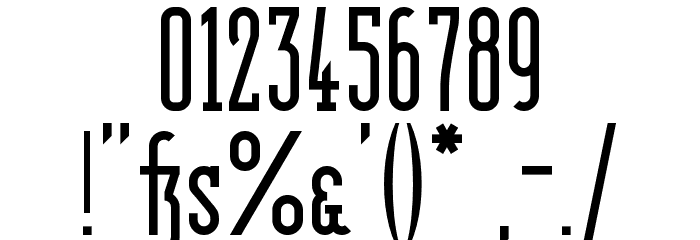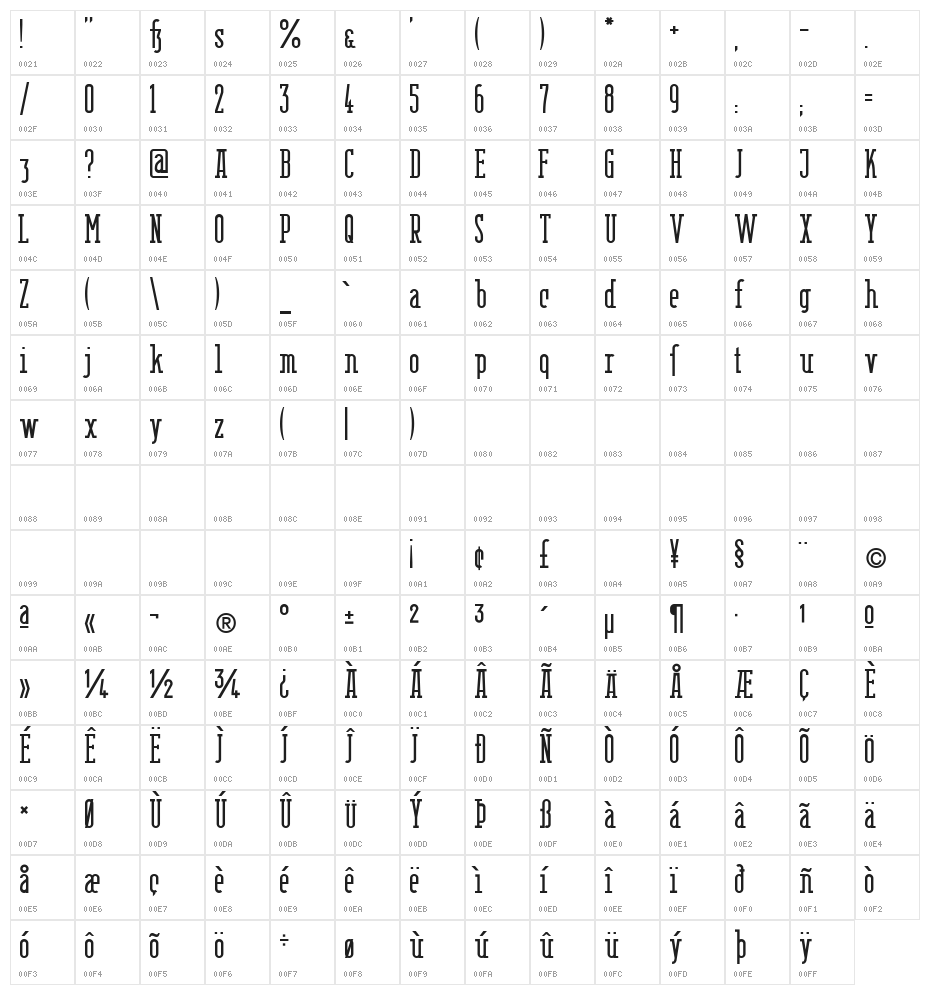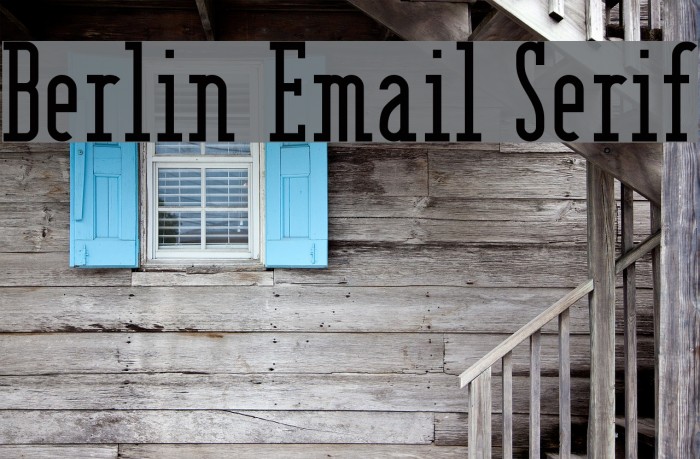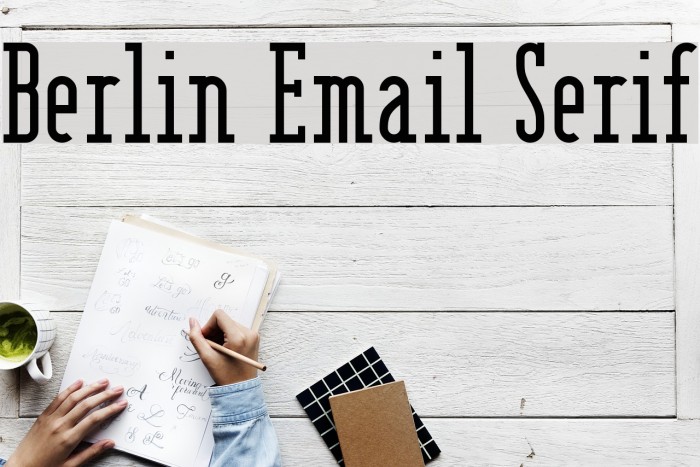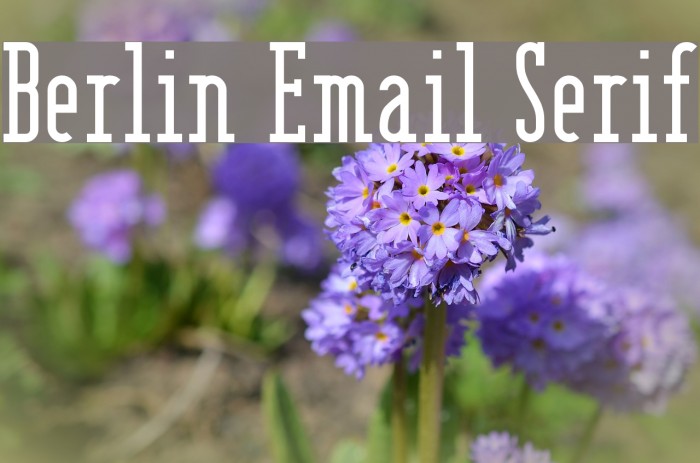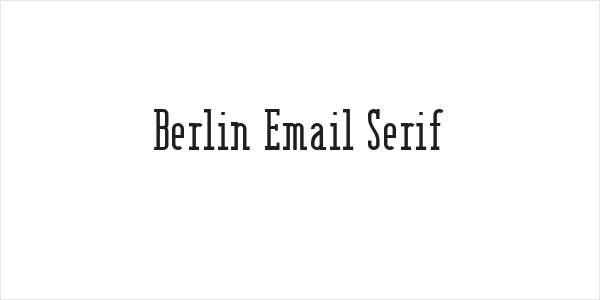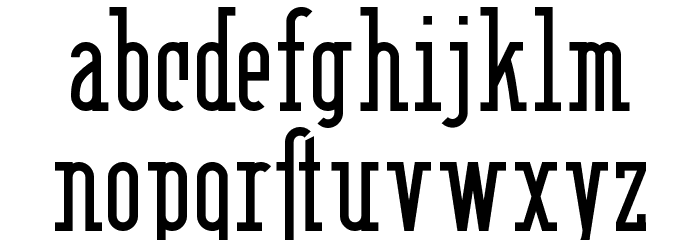
Berlin Email Serif Font
Berlin Email Serif Description
This font exhibits a bold and robust character with a strong presence. The uppercase letters are tall and commanding, featuring thick vertical strokes and slightly thinner horizontal lines, giving it a dynamic and authoritative look. The lowercase letters maintain a consistent style, with a slightly condensed form that complements the uppercase. The numerals are clear and legible, designed to stand out with their boldness. Special characters are crafted with precision, ensuring they match the overall aesthetic. This font is ideal for making a statement, with its high contrast and strong serifs that add a touch of elegance and sophistication.
| Proposed Projects | Ideal for headlines, posters, branding, and any project requiring a bold, authoritative typeface. |